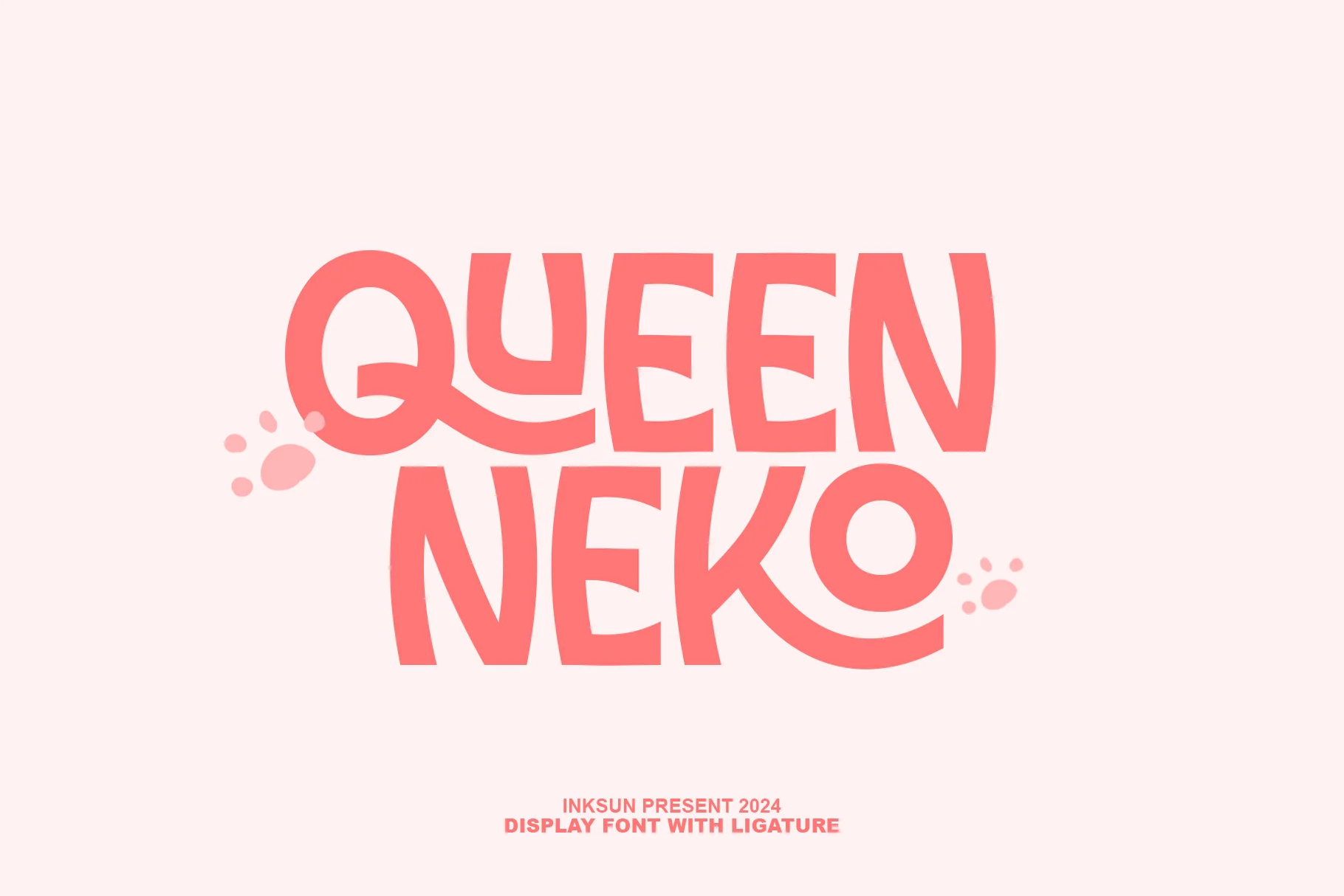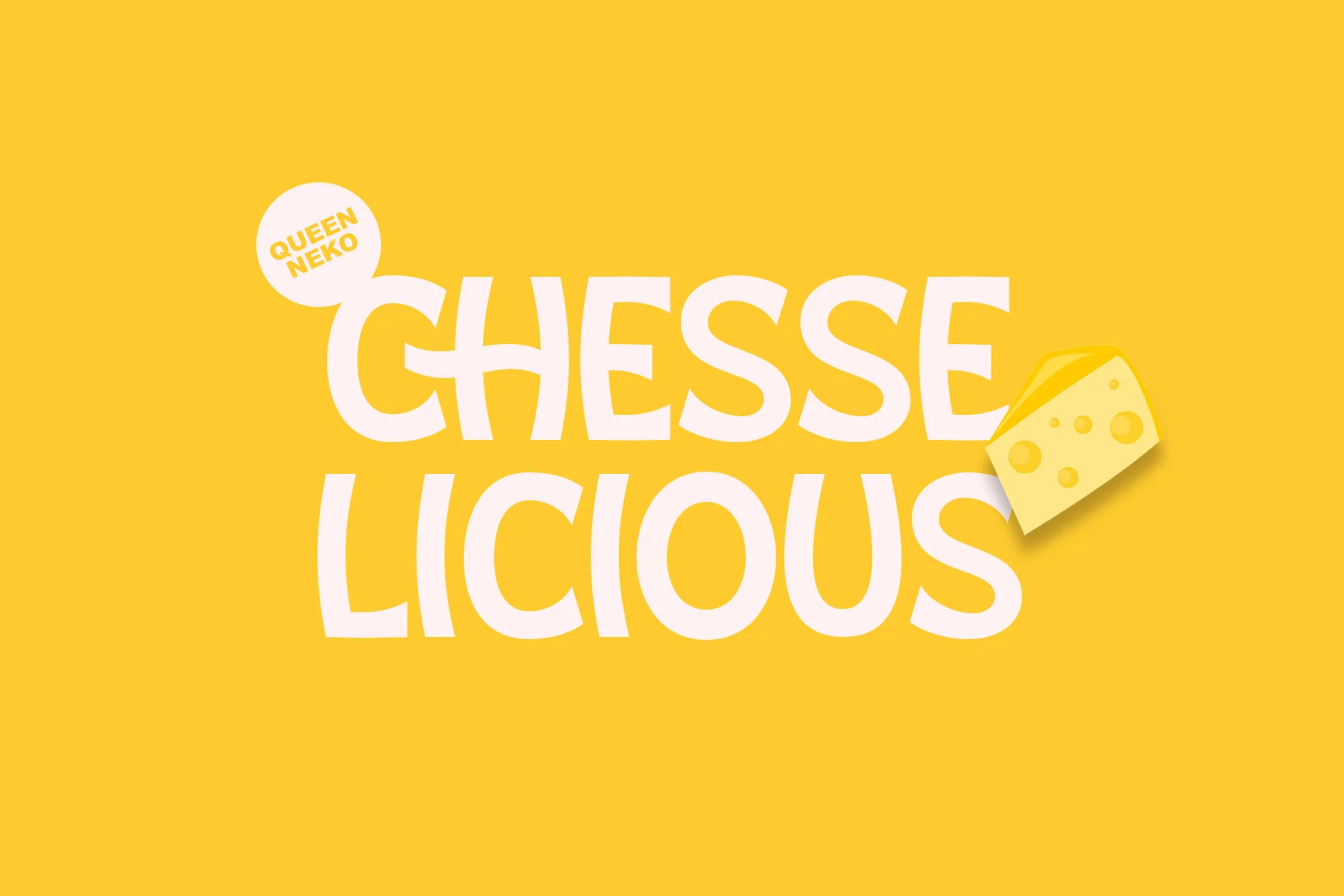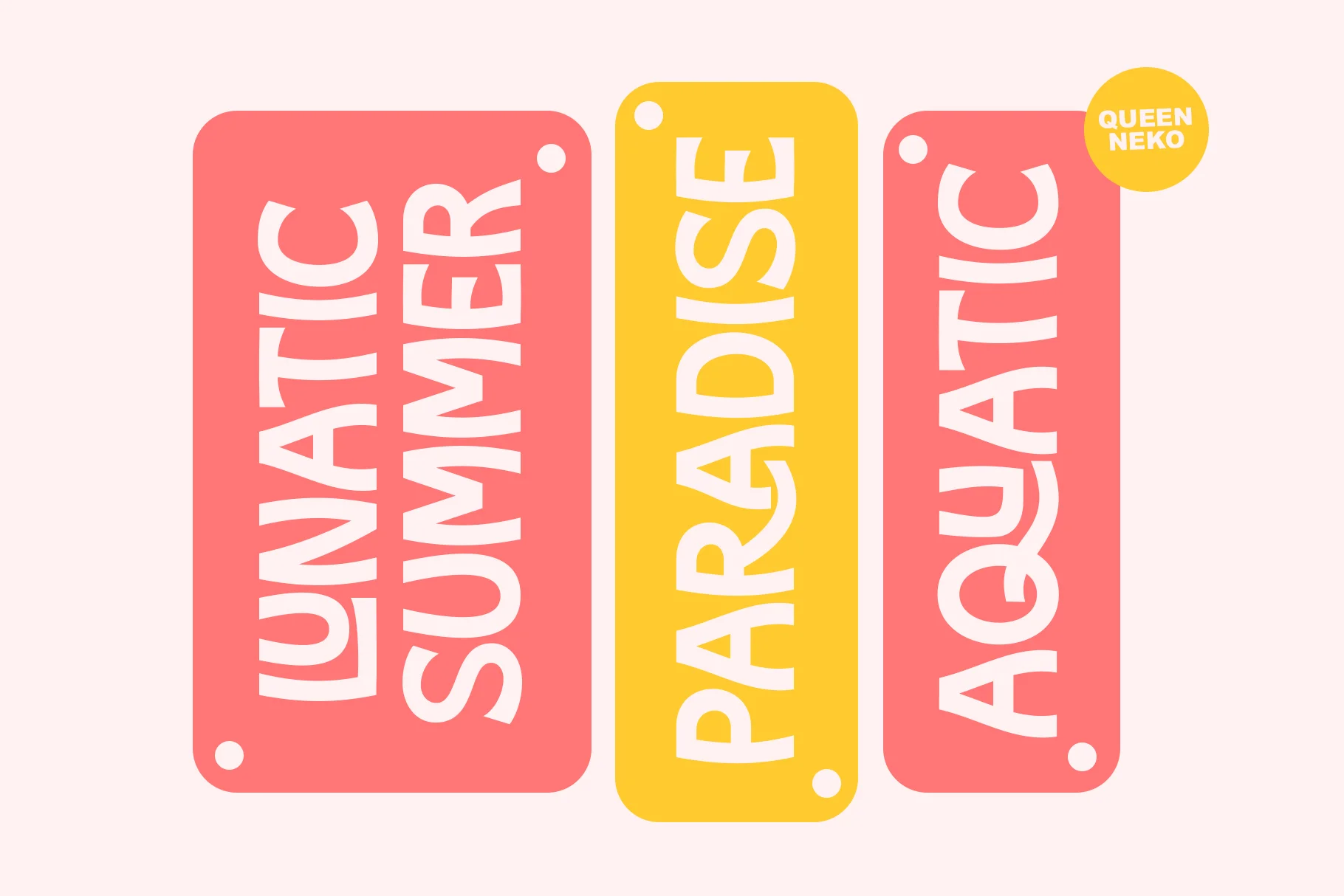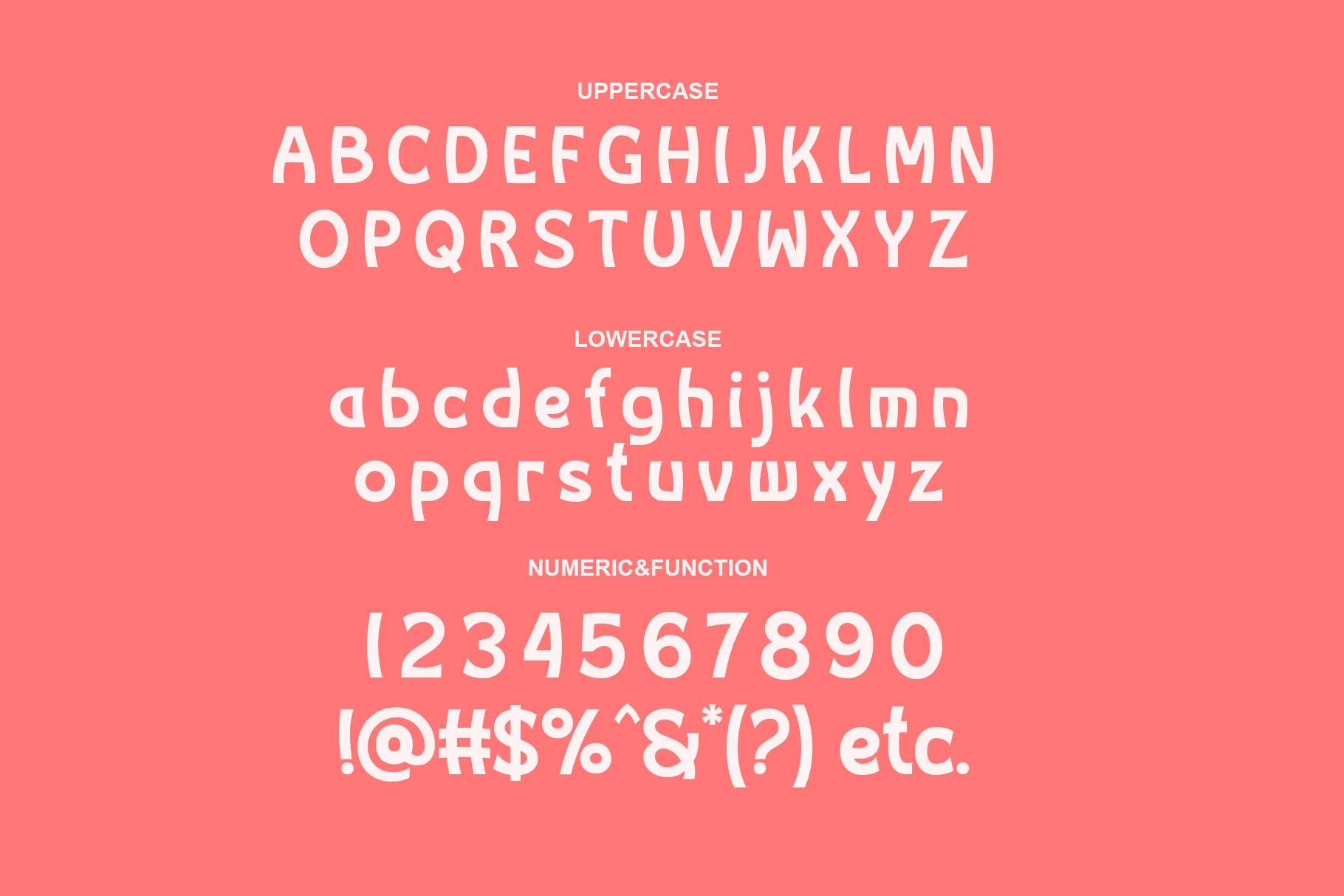
Queen Neko
This font is a display font designed with a more relaxed, unique, and cheerful style.
Visual Characteristics: It has organic, relaxed letterforms. The lines tend to curve and have a consistent yet dynamic thickness.
Special Features: It features ligatures (such as the connection of the letters 'Q' to 'U' or 'K' to 'O') that give the impression of artistic handwriting.
Impression: Fun, friendly, and cute. Ideal for pet product branding, children's apparel designs, or casual creative content.